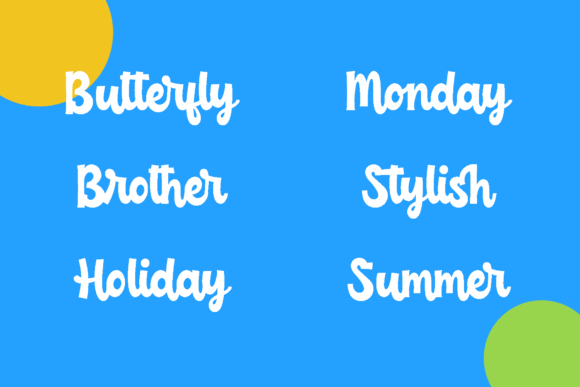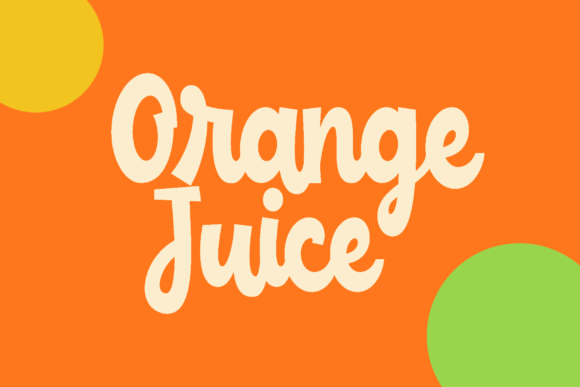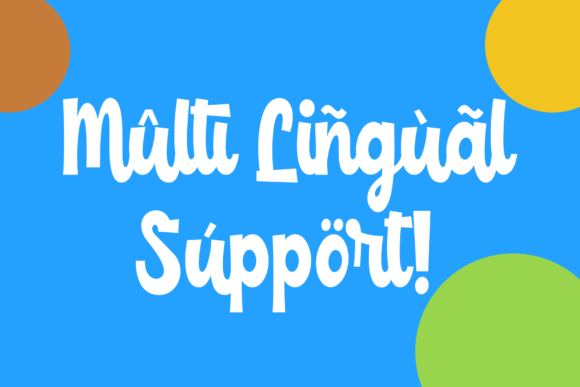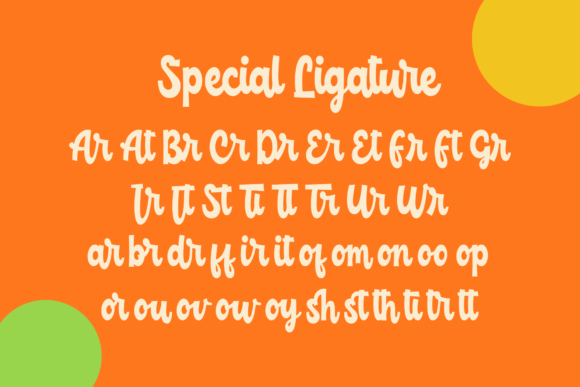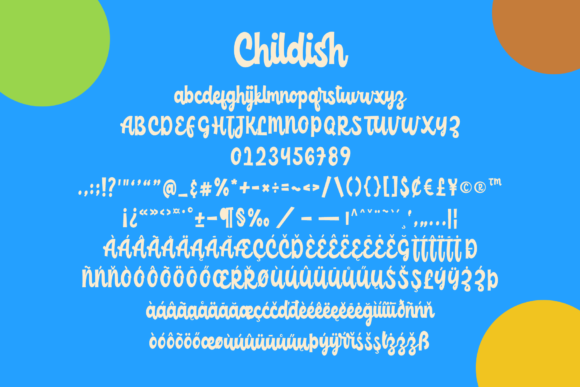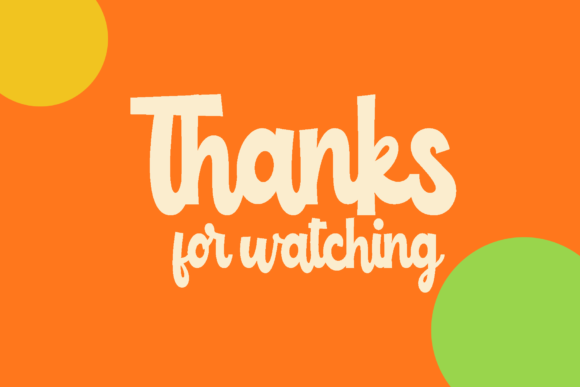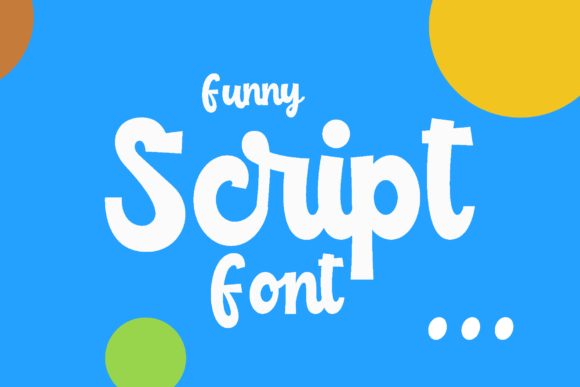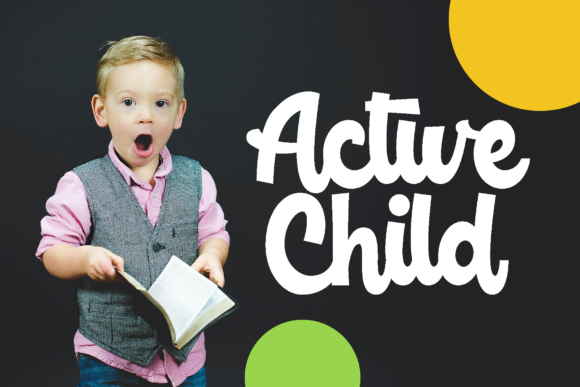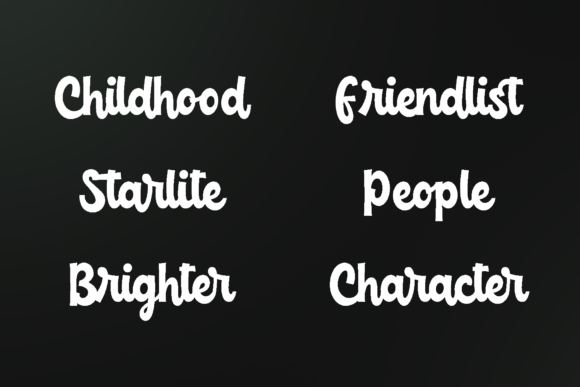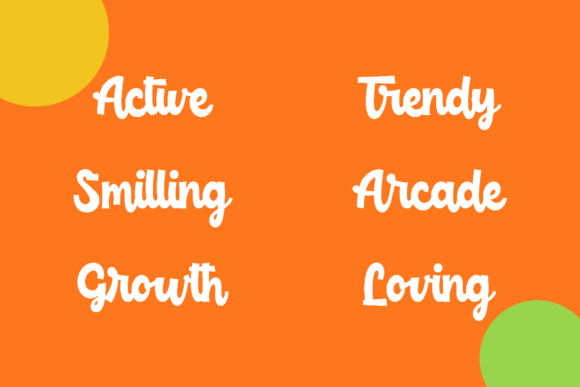
Childish Font
About Childish Font
Childish makes a great font for all things kids! This playful and adventurous script will take any design project to the highest level.